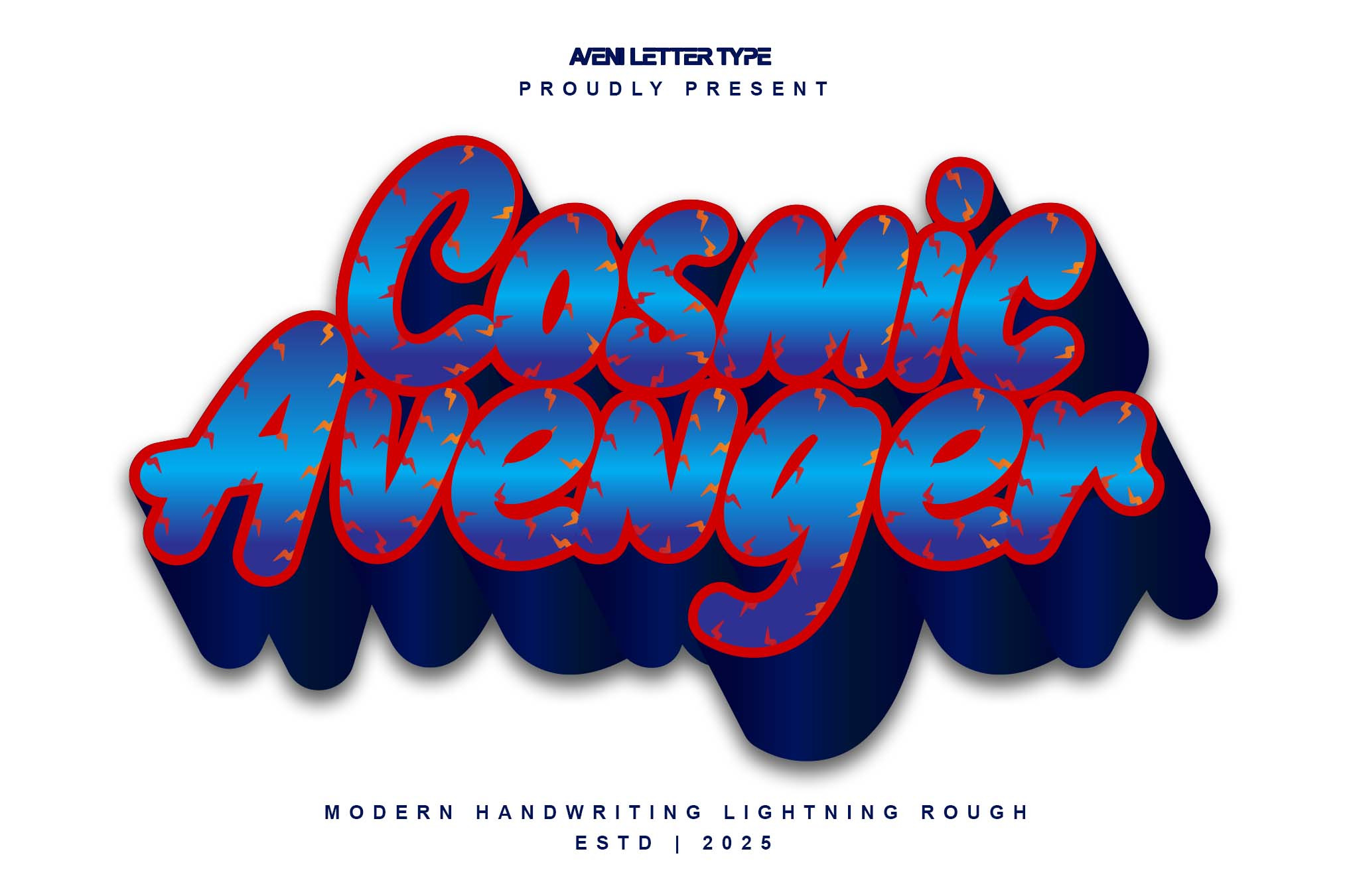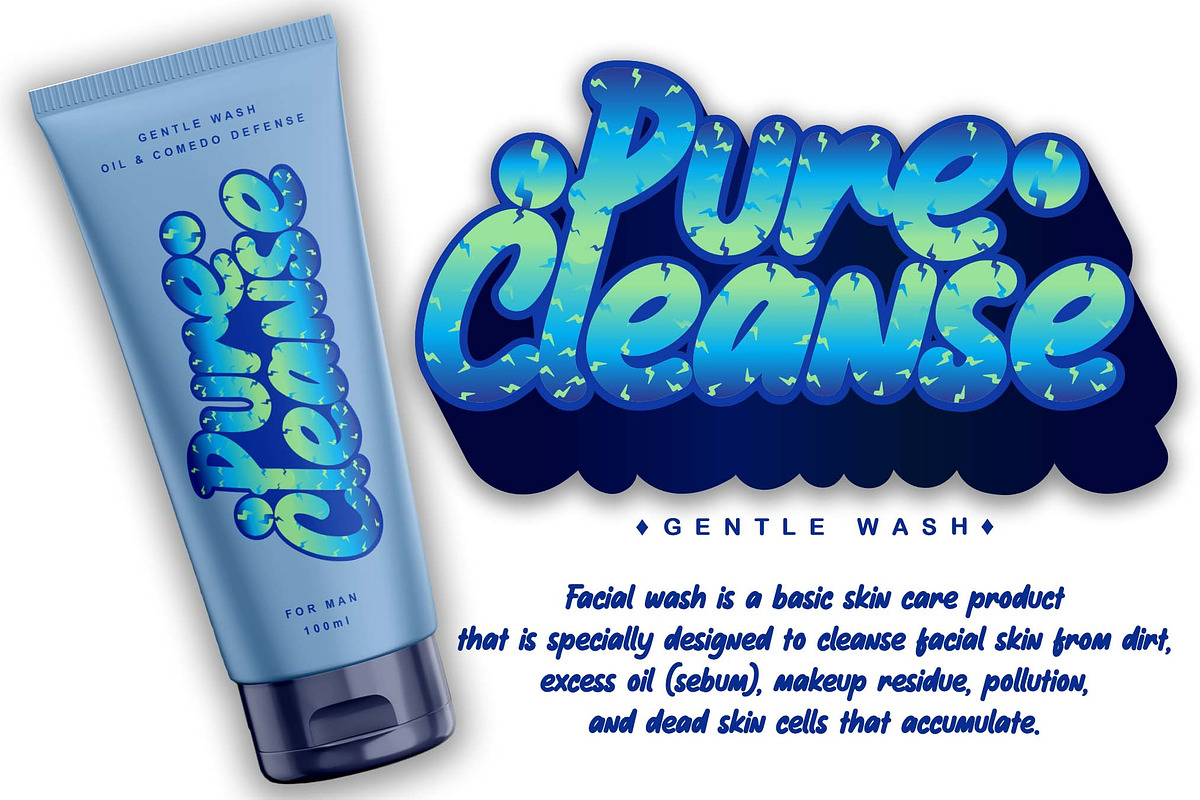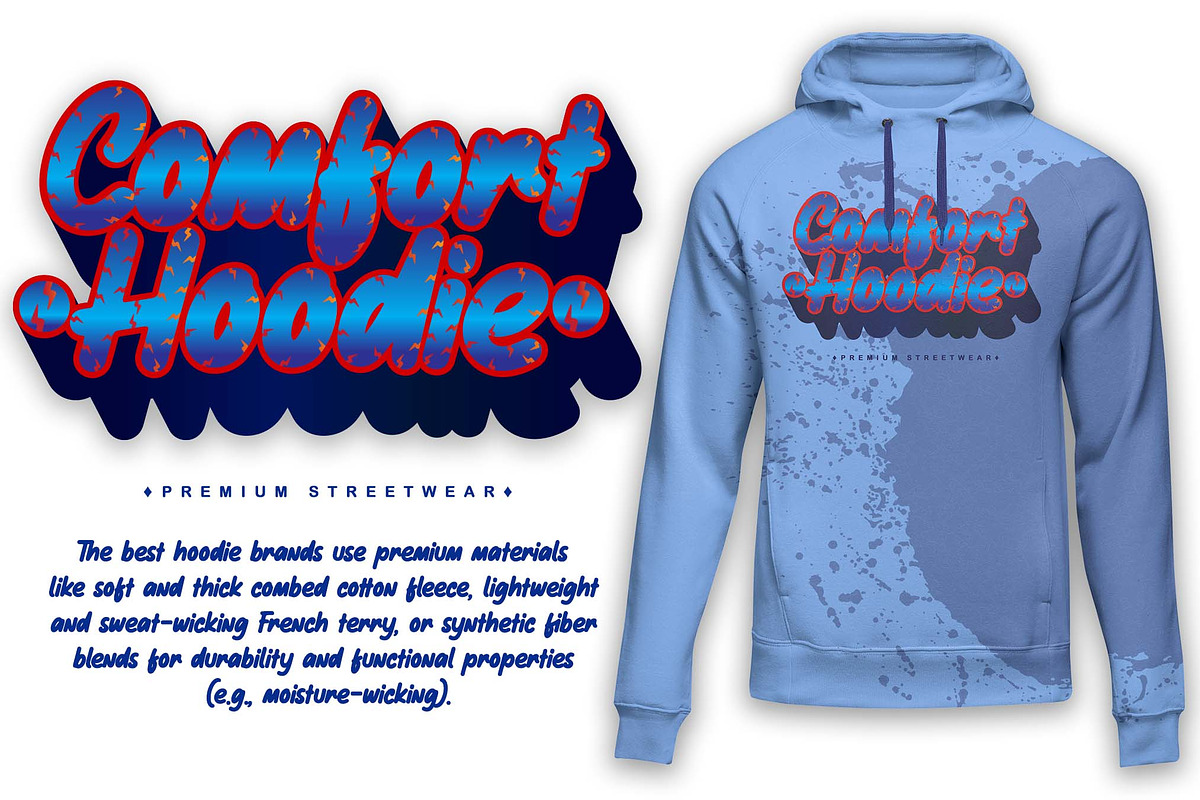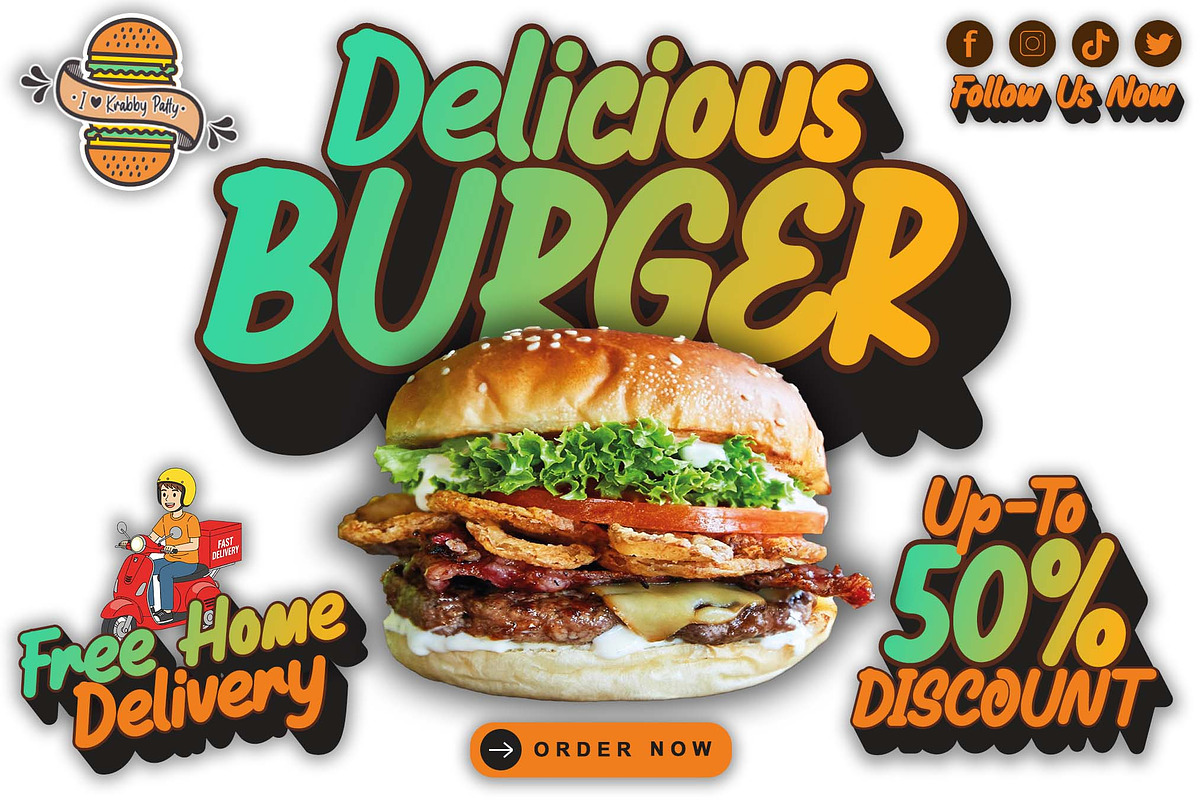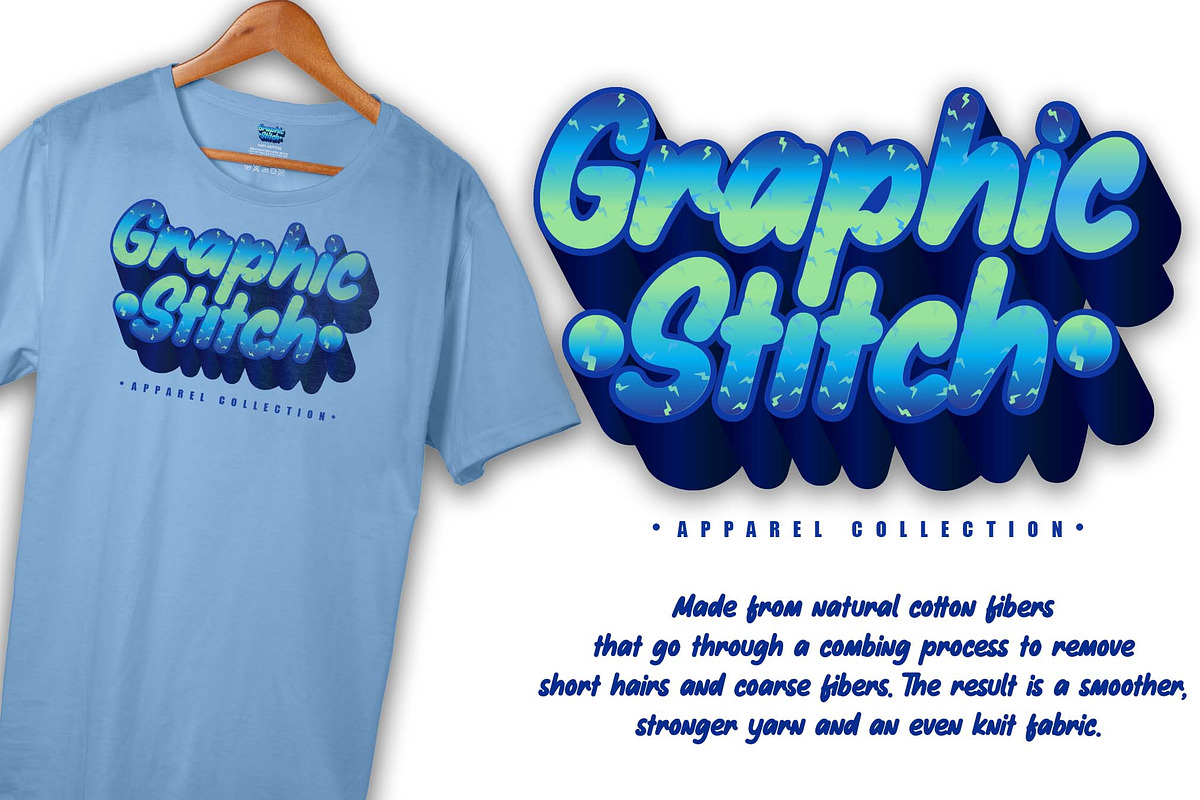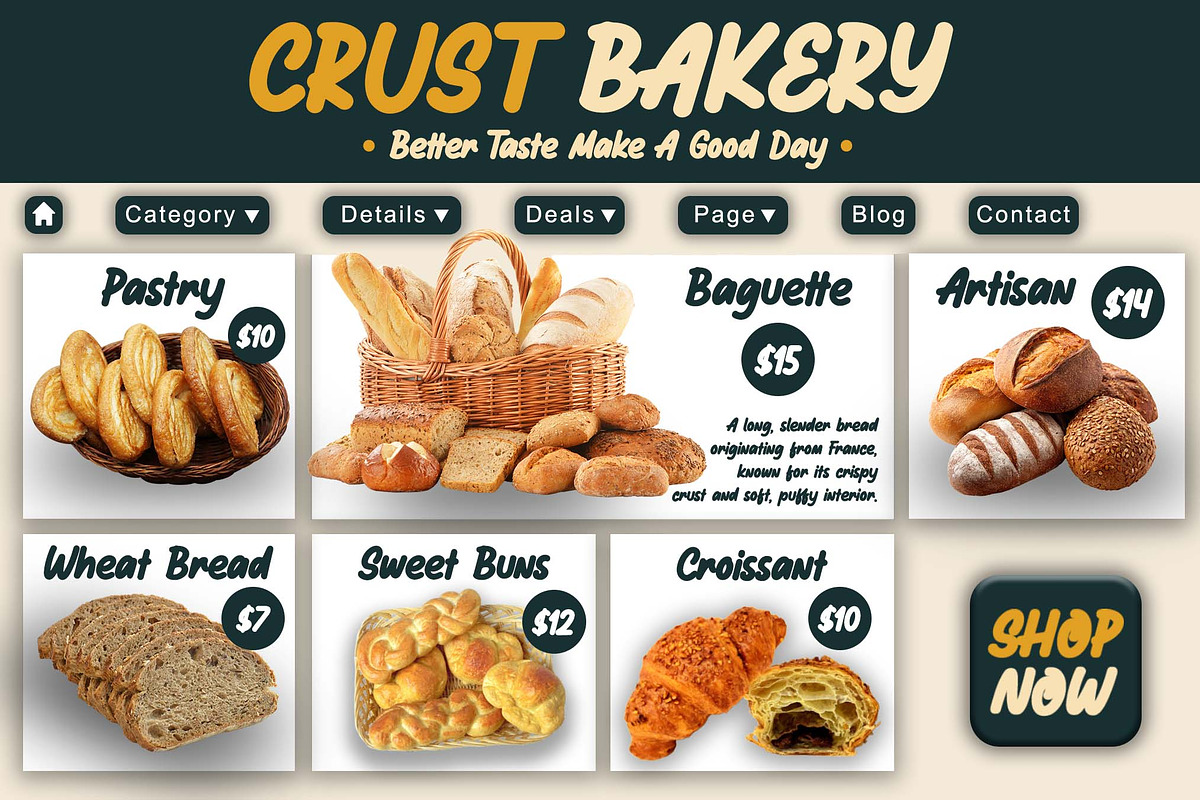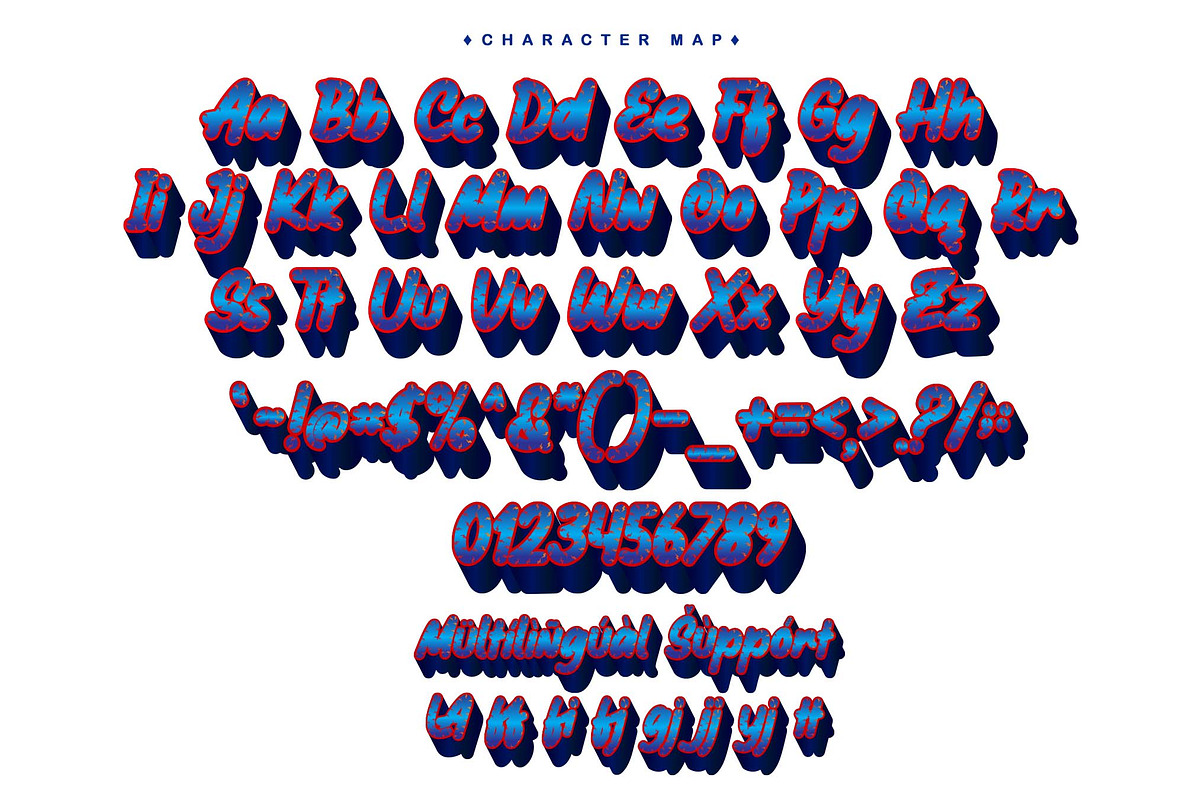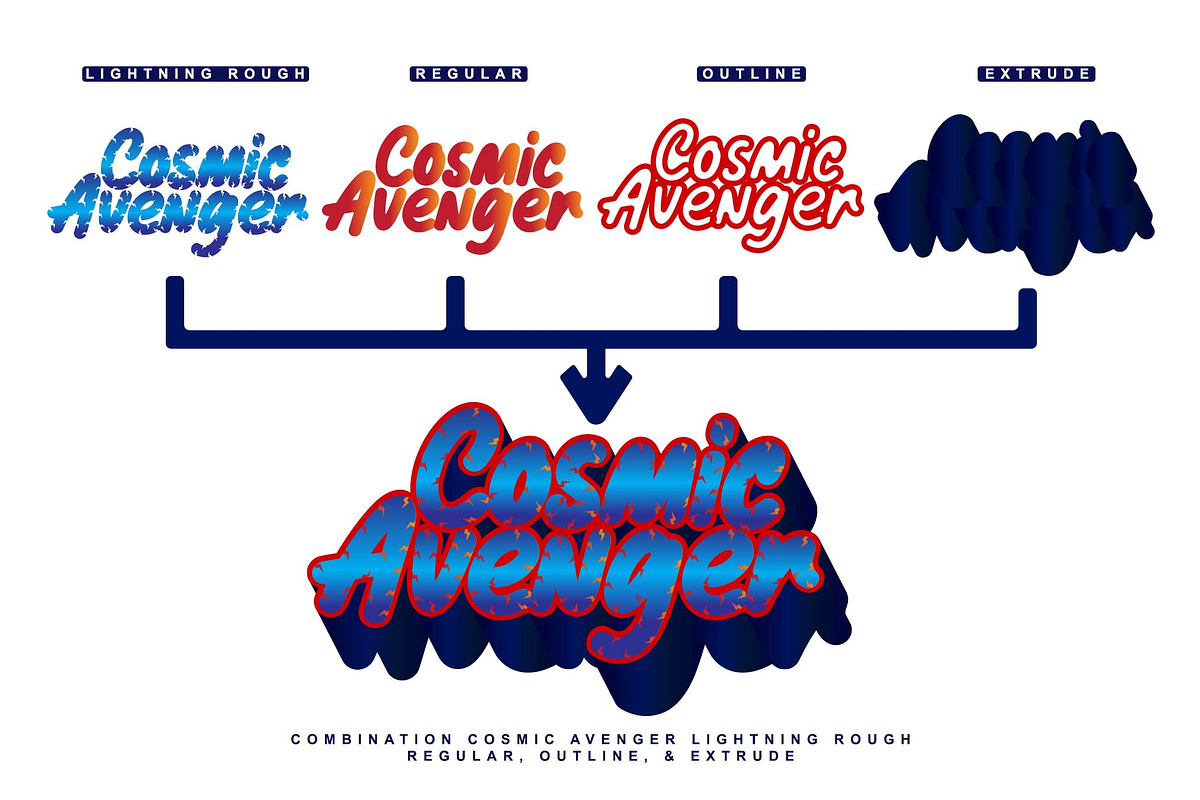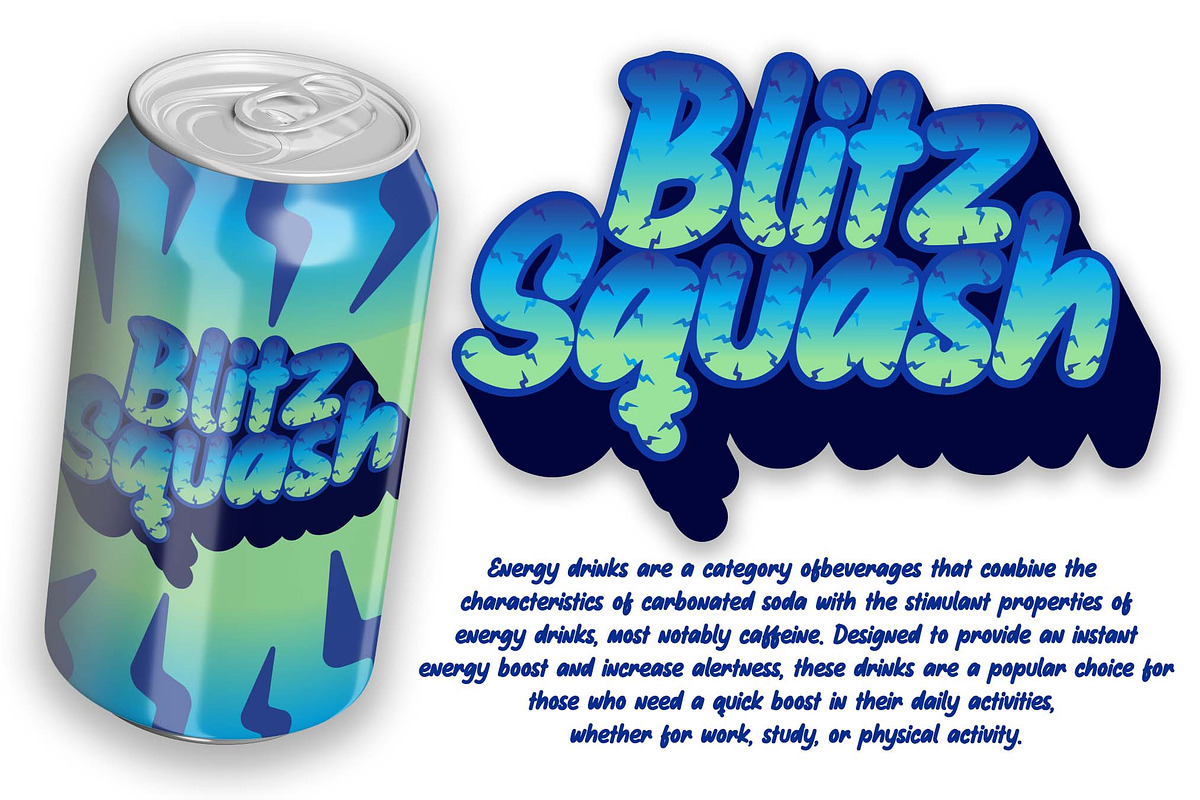
Cosmic Avenger | Handwritten Font
Hello, I am Cosmic Avenger Font, born as a bold, elegant handwritten font, and I have a family consisting of Cosmic Avenger Lightning Rough, Regular, Outline, and Extrude. This Cosmic Avenger font has been kerned very neatly, so it can make it easier for you to use this font in small to large projects that you are working on.
Of course, this Cosmic Avenger Font is very Instagramable, so it is very suitable for use in various projects that you are working on, such as for company branding, logotypes, product branding, crafting, digital printing, your business nameplate, greeting cards, flyers, and many more.
Here are the Font Features that you get when you buy this font:
- Ligature and Multilingual
- Cosmic Avenger Regular Font
- Cosmic Avenger Lightning Rough Font
- Cosmic Avenger Outline Font
- Cosmic Avenger Extrude Font